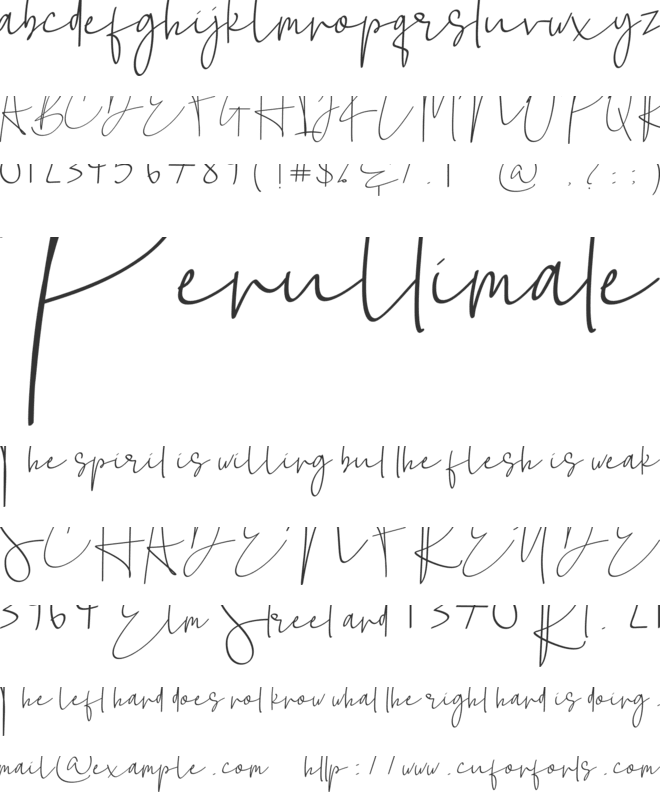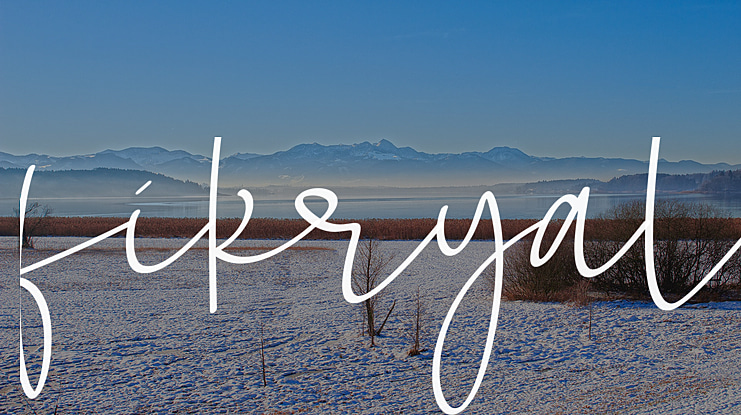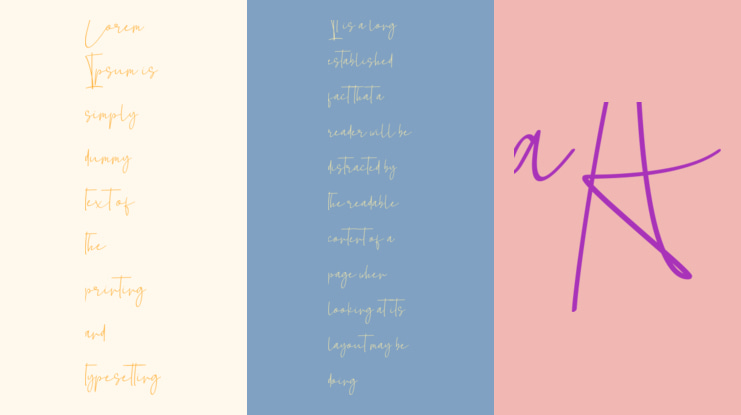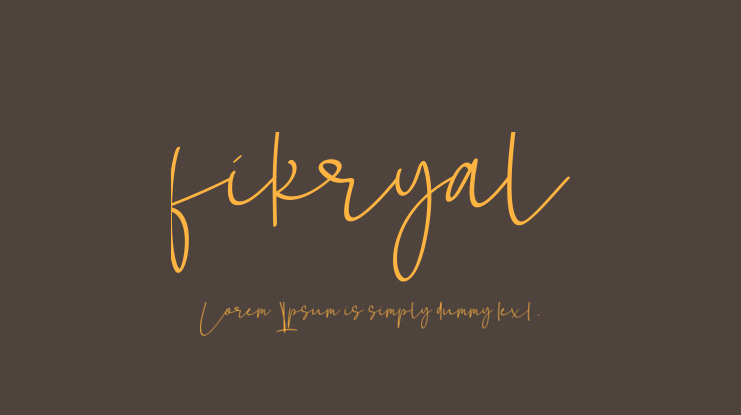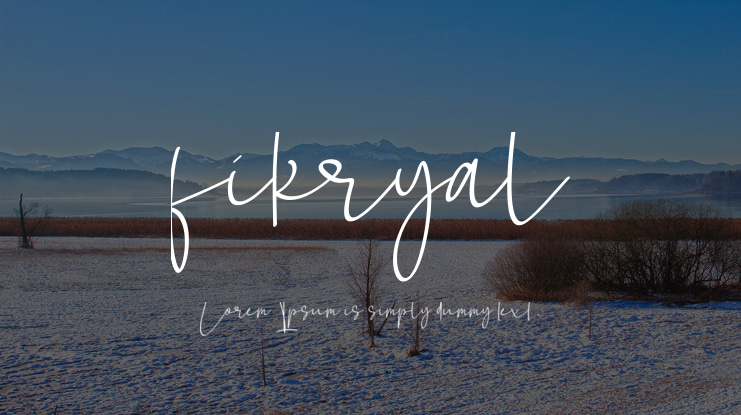
fikryal Font
hello everyone introduces my new product that you can download here but if you don't download it in a complete format you will regret it, because i added 90 ligature in this font This font is very suitable for your needs such as products, magazines, logos, etc. thank you:) warm greetings, fikry